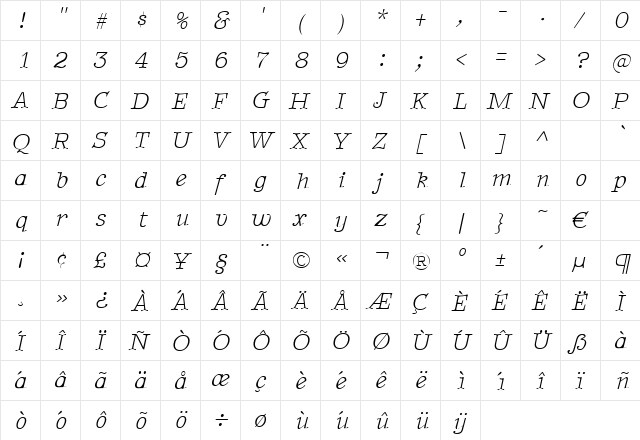
TypenradItalic Regular
Design Context for TypenradItalic Typeface
TypenradItalic offers clean, dependable letterforms without strong stylistic allegiance, making it a practical choice for designers who need flexibility. The dynamic lean of this cut emphasises speed and emphasis in any layout.